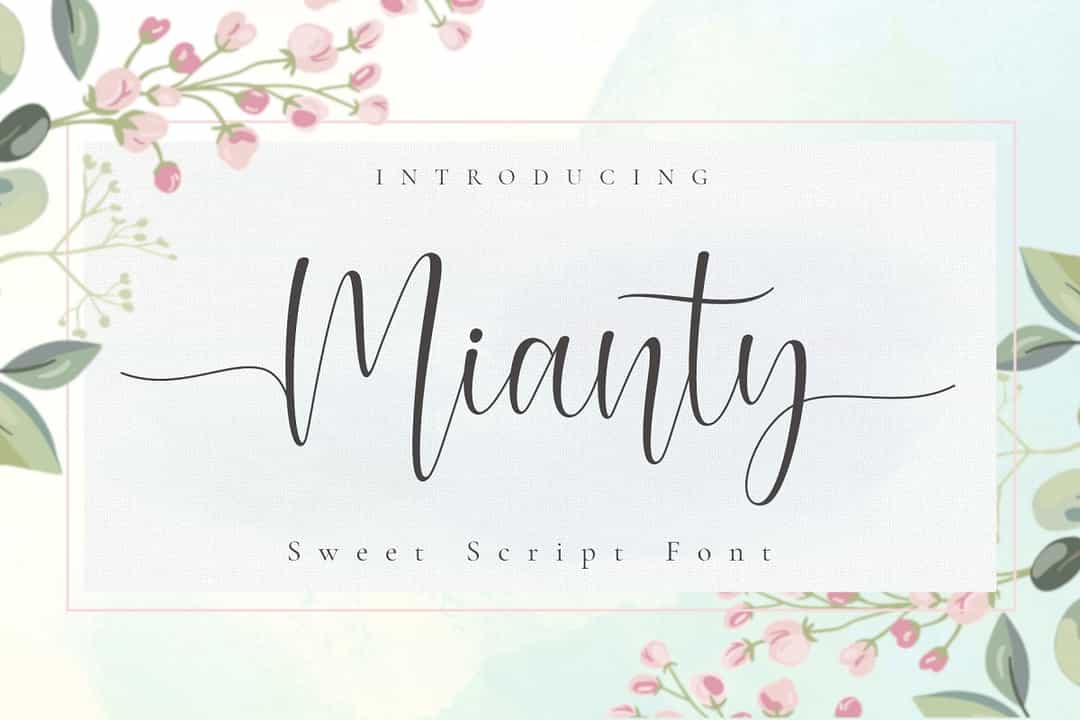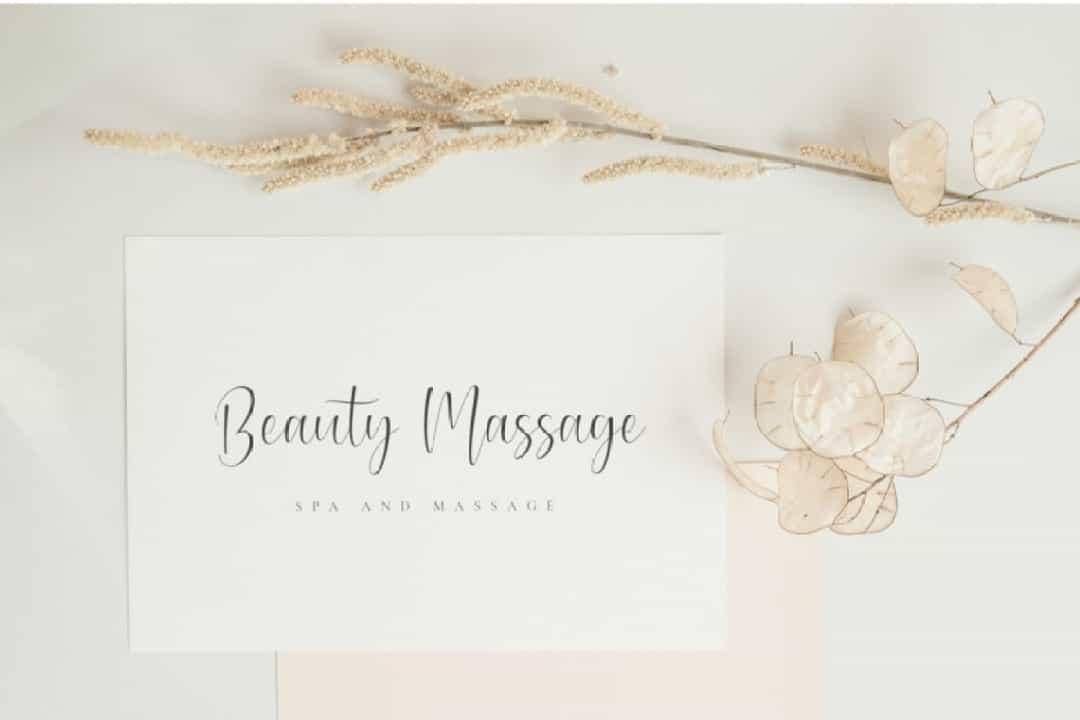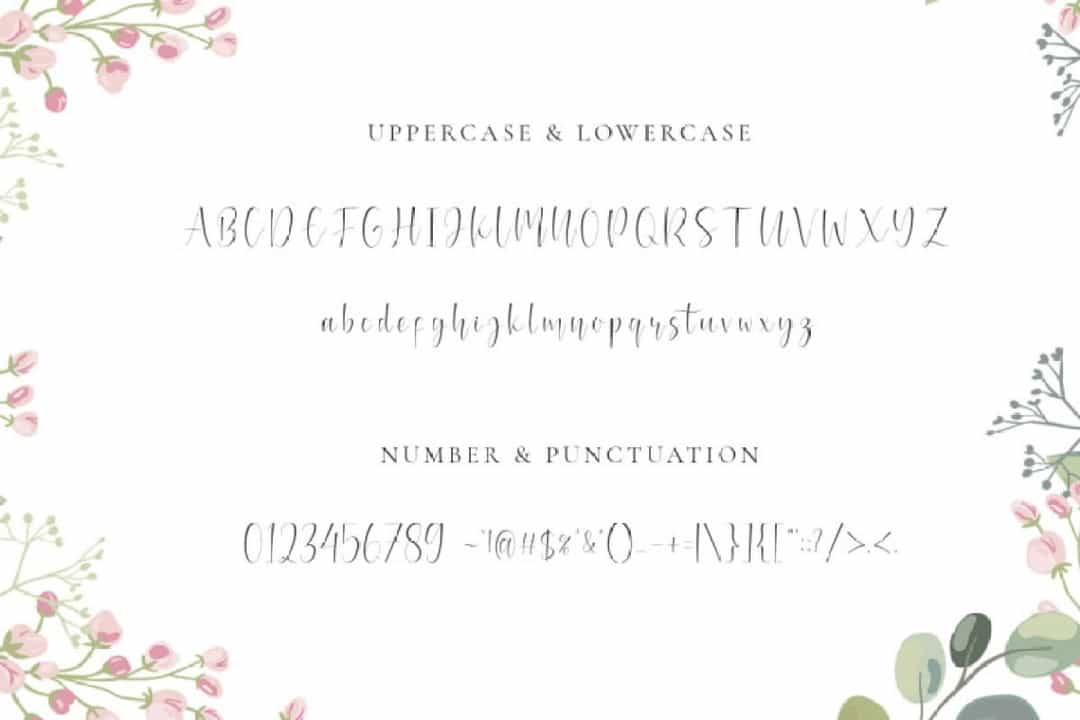
Discover Mianty Calligraphy Script Font, part of the Calligraphy Handwritten Script collection—a versatile and unique font perfect for adding a personal touch to your projects. Download it for free and enjoy crafting designs with style, from invitations to social media posts. This font is available exclusively for personal use, giving you the freedom to create without limits. Unlock your creativity with Mianty Calligraphy Script Font today!
Mianty Font, a font which is entirely handwritten script font that is a natural font with natural characteristics. It is perfect as a signature font for wedding invitations blogs as well as business cards, social media and product names.